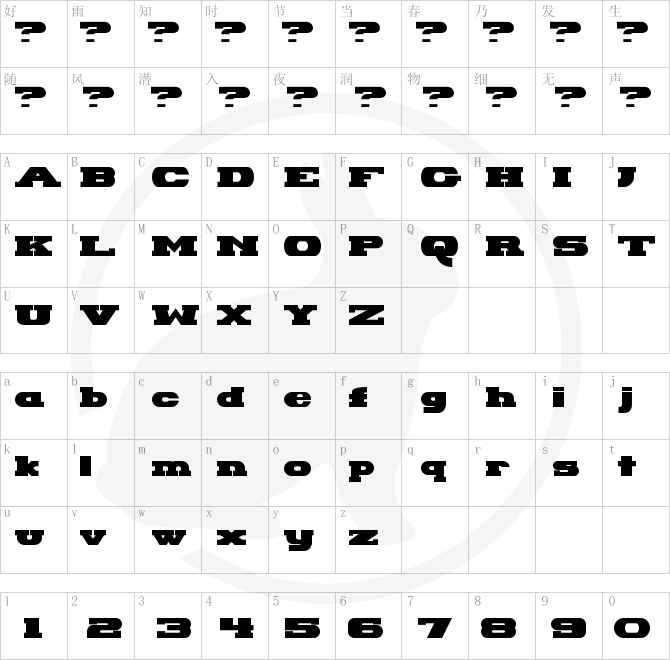
- Font Name:Hackney Block
Hackney-Block-copy-1-.ttf is a very beautiful artistic font, Hackney-Block-copy-1-.ttf is widely used in the design and printing of various books and pictures,Hackney-Block-copy-1-.ttf has a strong visual impact,Hackney-Block-copy-1-.ttf is a commonly used font in newspapers, magazines and books, and is used in posters, e-commerce Poster design, store design, logo design, font design and other fields.Hackney-Block-copy-1-.